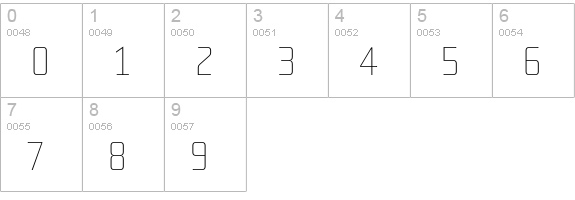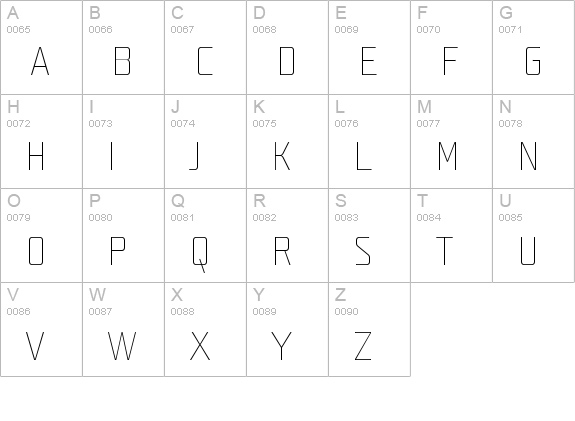
Teuton Weiss Font Details
Introducing the captivating Teuton Weiss font, a perfect blend of classic elegance and modern sophistication. This font exudes a timeless charm that effortlessly captures attention and adds a touch of refinement to any design project. With its clean lines and well-balanced proportions, Teuton Weiss font presents a harmonious balance between tradition and innovation. Its versatile nature makes it suitable for a wide range of design applications, from branding and packaging to editorial layouts and signage. The Teuton Weiss font is meticulously crafted, with every letterform carefully designed to ensure optimal legibility and visual impact. Its crisp, sharp edges and precise curves add a sense of precision and professionalism to your work. But perhaps the most impressive feature of the Teuton Weiss font is that it is completely free to download. Yes, you read that right! This stunning font is freely available at FontsMarket.com, allowing designers and creatives to elevate their projects without breaking the bank. Whether you are a seasoned professional or a budding designer, the Teuton Weiss font offers a wealth of creative possibilities. Its extensive character set includes a range of ligatures, alternates, and swashes, enabling you to add a personal touch and create truly unique designs. So why wait? Embrace the beauty of the Teuton Weiss font and unlock a world of creative opportunities. Download it for free at FontsMarket.com today and let your designs shine with elegance and sophistication.